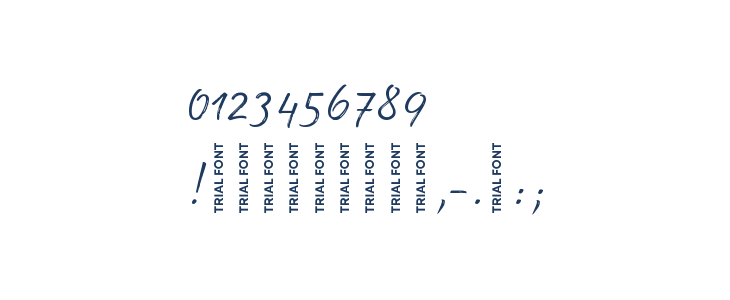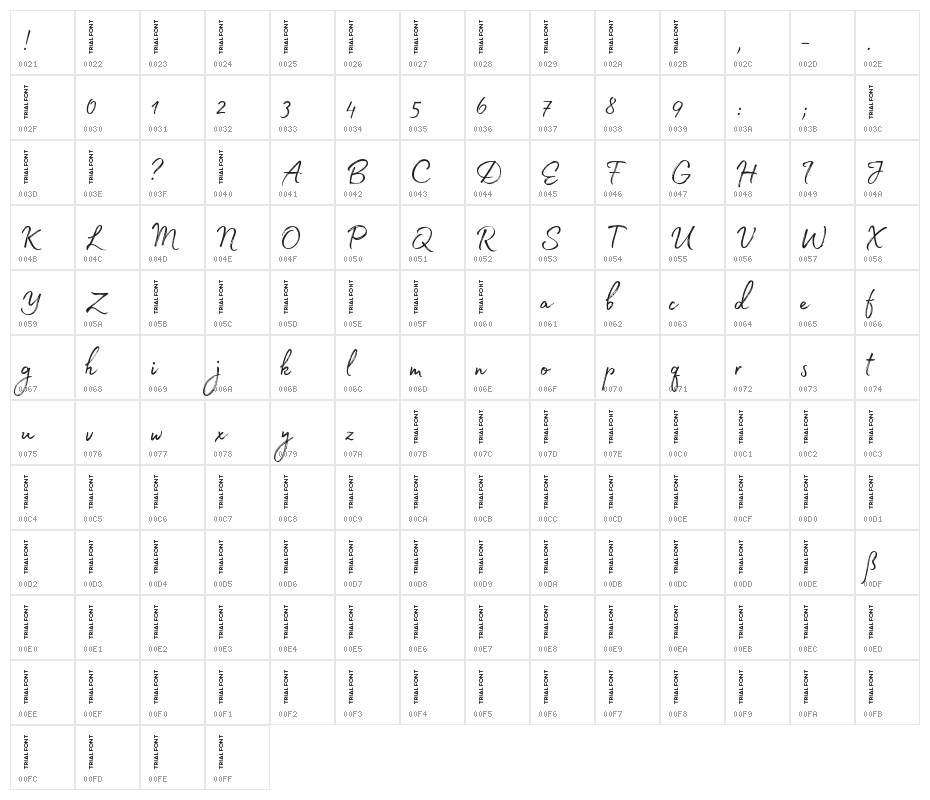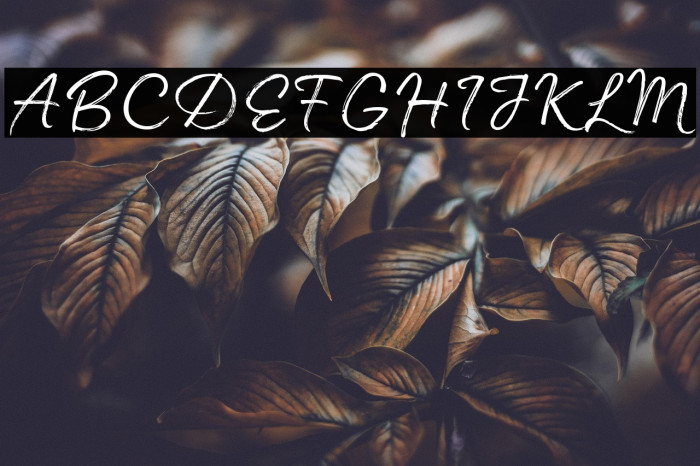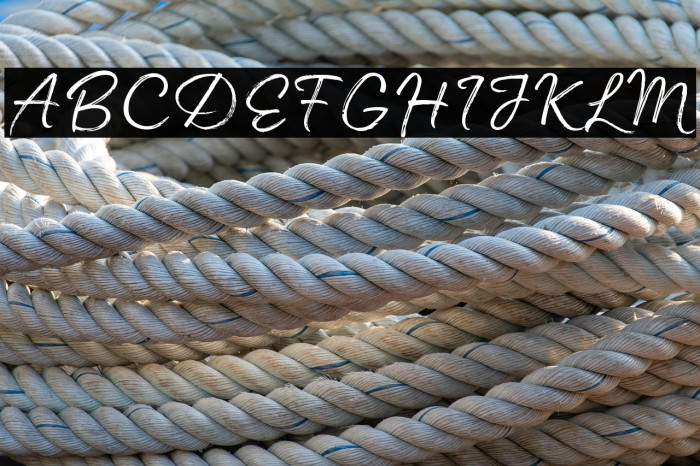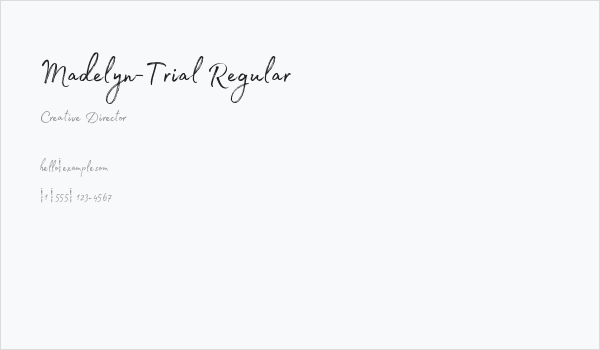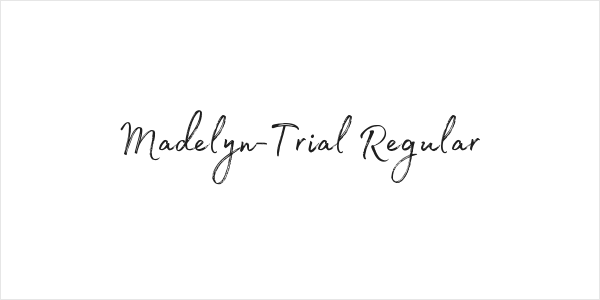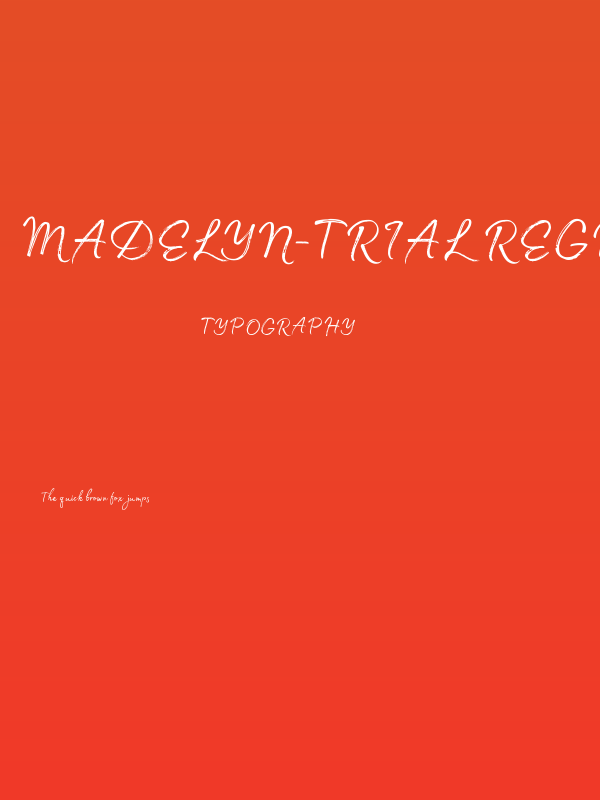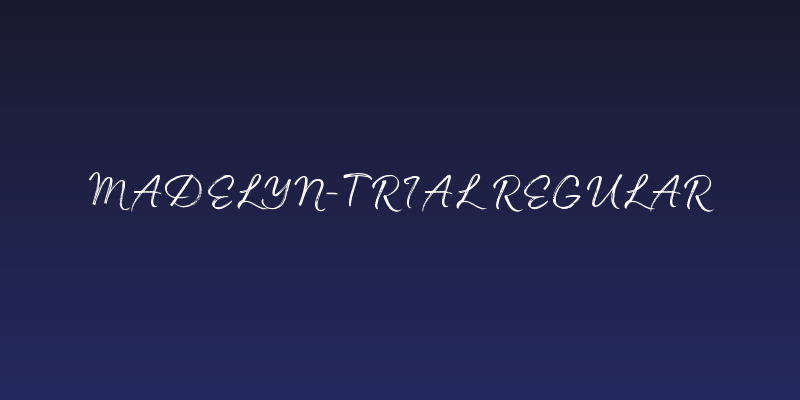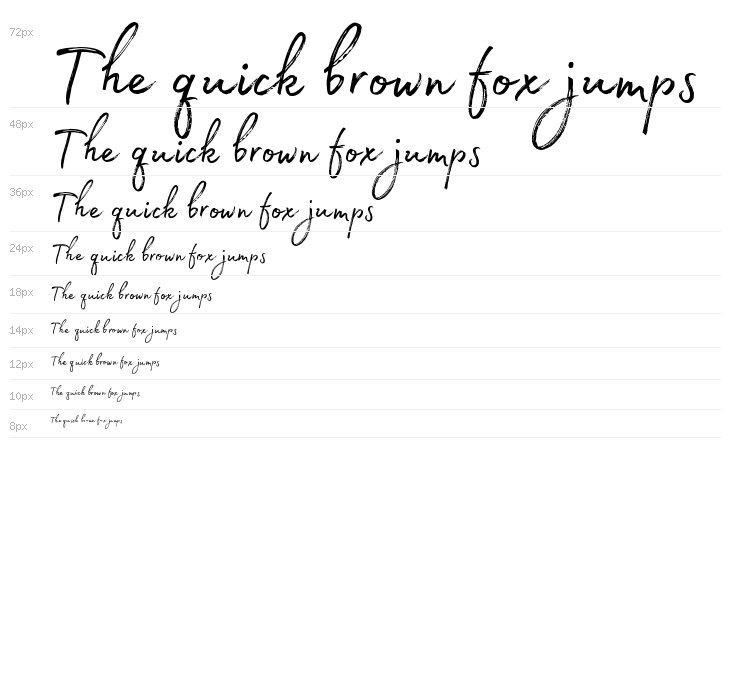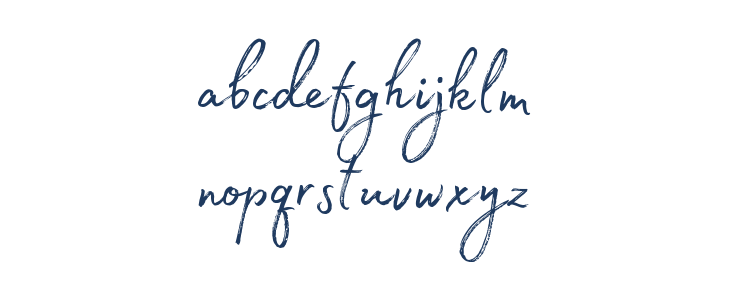
Madelyn-Trial Regular Font
Madelyn-Trial Regular Description
This font features an elegant, flowing script style that mimics natural handwriting. The uppercase letters are slightly more structured, while the lowercase letters exhibit a more fluid and cursive appearance. The strokes vary in thickness, adding a dynamic and artistic flair. The numerals and special characters maintain the same handwritten aesthetic, ensuring consistency throughout. This font is ideal for projects that require a personal touch or an elegant, sophisticated look.
| Overall Style | Elegant, Handwritten |
| Proposed Projects | Wedding invitations, greeting cards, personal branding, and elegant packaging designs. |